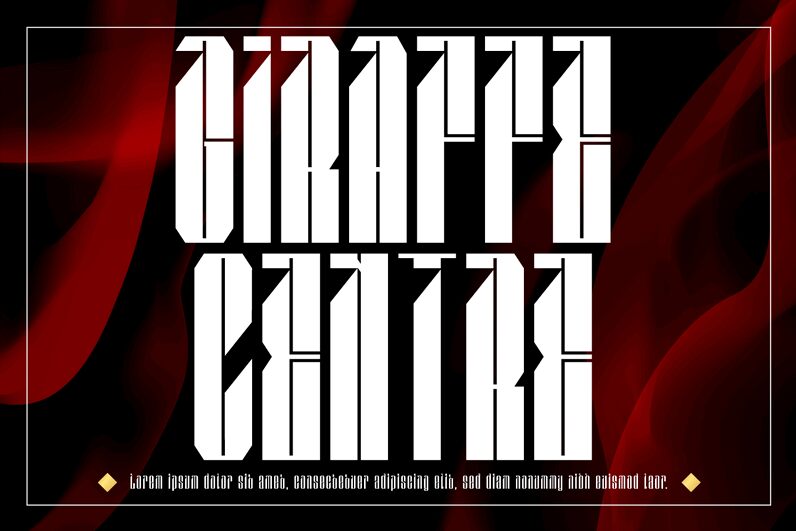
GIRAFFE CENTRE Demo
Giraffe Centre font by 177Studio is a gothic font featuring ornate and structured characters. Reliving historical aesthetics, the condensed display letters insert a dramatic effect into every text written. Integrating several shapes and sizes within each letter, the author managed to pull out and maintain an intricate appearance in the freely available for download typeface.